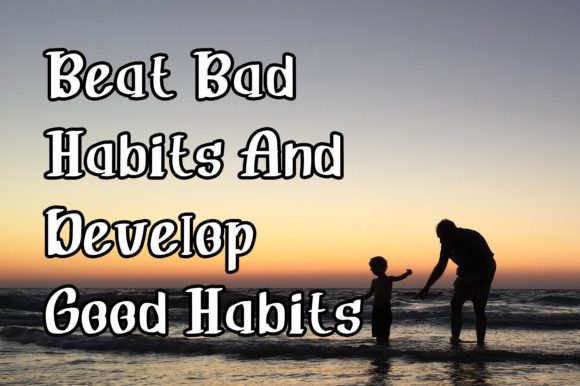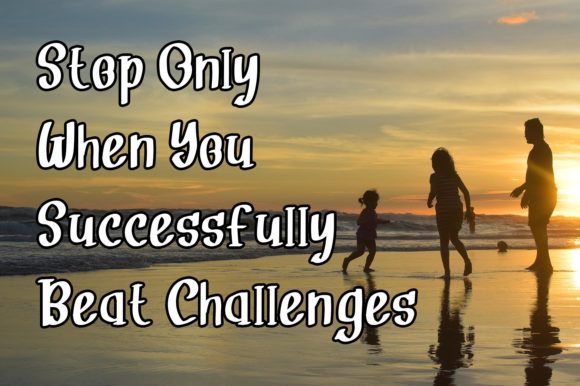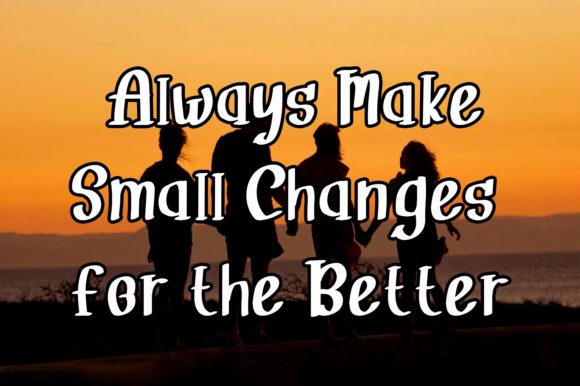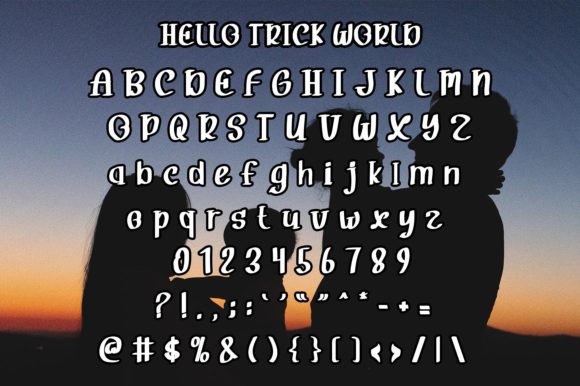
Hello Trick World Font
About Hello Trick World Font
Introducing Hello Trick World Font, a cute and casual display font. This font is characterized by its cute and casual style, which creates a sense of fun and creativity. It’s not just a font, it’s a tool that brings your designs to life.
The characters in Hello Trick World Font are cute and casual, adding a touch of personality to your designs. The font is perfect for any design that needs a fun and casual touch. Whether it’s for Instagram, a calligraphy script for DIY projects, or any other design, Hello Trick World Font can make your designs more appealing and engaging.
One of the best features of Hello Trick World Font is its versatility. It’s a great choice for any design that needs a cute and casual touch. Whether it’s a poster, a brochure, a website, or a social media post, Hello Trick World Font can make your designs more appealing and engaging.
In conclusion, Hello Trick World Font is more than just a font. It’s a design asset that can elevate your work and make it stunning. Whether you’re designing a logo, crafting a social media post, or creating a movie title, Hello Trick World Font can help you achieve your design goals. So why wait? Start creating stunning work with Hello Trick World Font today!